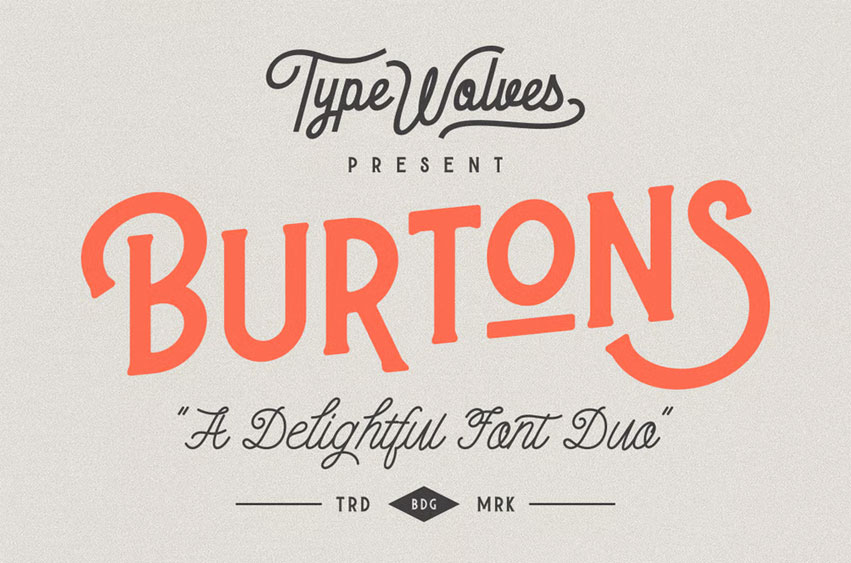
Burtons Font
Burtons Font is a new display font with cool characters. it’s a delightful font duo, serif and script perfect for headlines, logotypes, signs, posters, greeting card, letterhead, t-shirt, and many more.